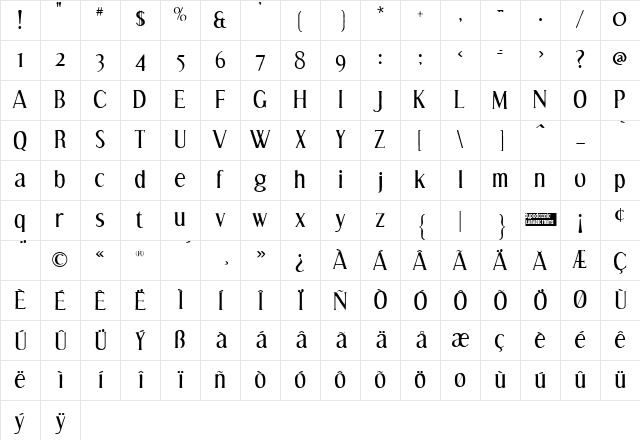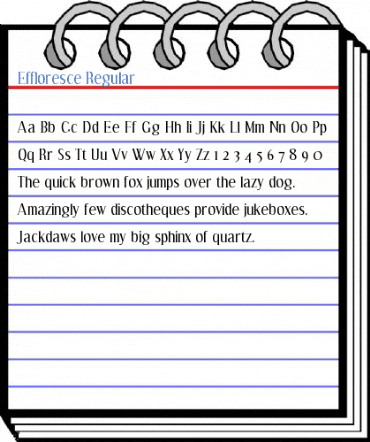
Effloresce Antique Regular
Foundry: Ray Larabie
Designer: Ray Larabie
Design Context for Effloresce Antique
Effloresce Antique wears its vintage influences proudly, with letterforms that recall mid-century signage, classic packaging, and nostalgia-driven design.
Ideal for diner signage, record shop branding, 70s/80s-themed projects, and heritage product labels.
Font Pairing: Combine Effloresce Antique with a simple slab or neutral sans - period-accurate companions reinforce the vintage feel without competing for attention.
Pro Tip: Lean into Effloresce Antique's period character by pairing it with aged paper textures, muted colour palettes, and vintage illustration styles.